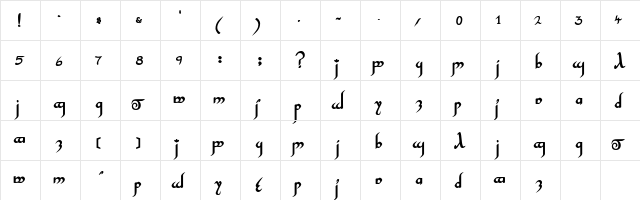
InshallahSSK Bold Font Preview
InshallahSSK Bold
Design Context for InshallahSSK Typeface
InshallahSSK is a composed and adaptable typeface that performs quietly and consistently across a wide range of design contexts. The heavy weight commands attention and anchors typographic hierarchies.
Pro Tip: Use InshallahSSK in both headline and body roles to test its range before committing to a single application.